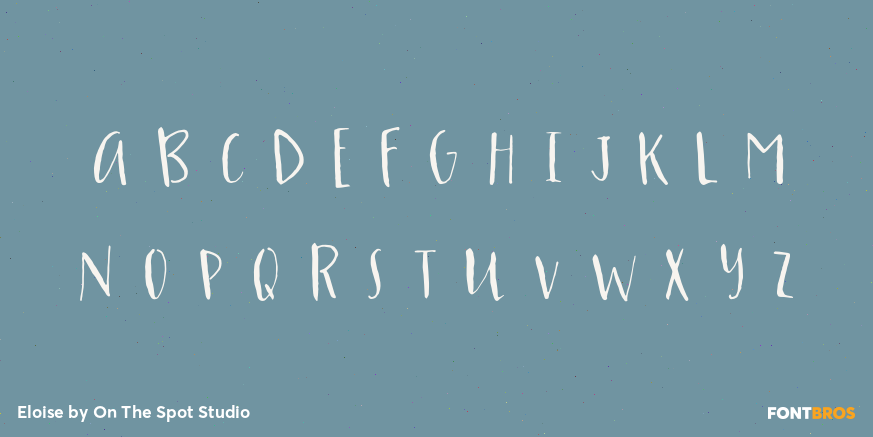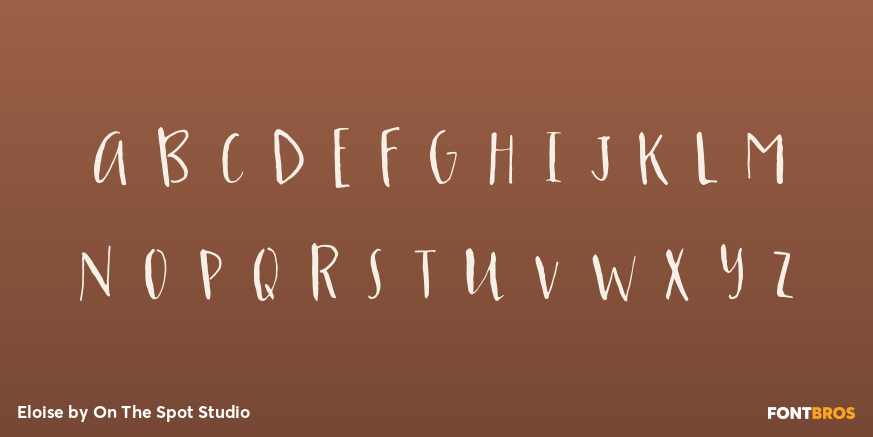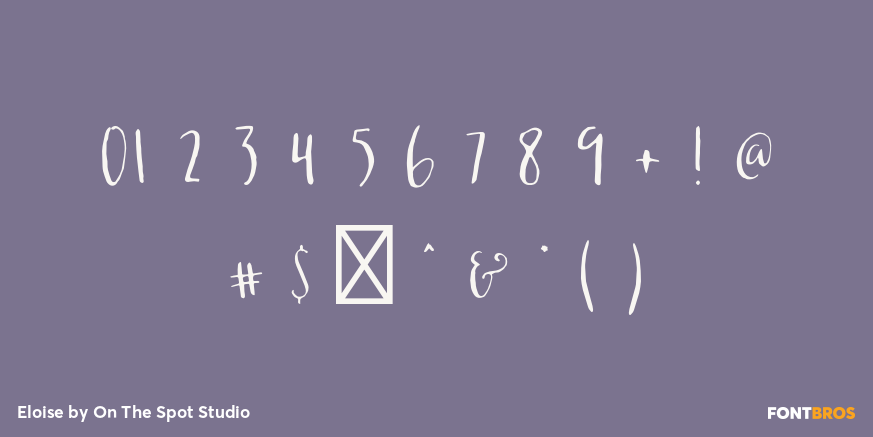
Eloise
Font Family by On The Spot Studio
Eloise is a super fun all caps font, created with pen and hand dipped ink...and a definite favorite of mine!
Includes letters, numbers and punctuation!